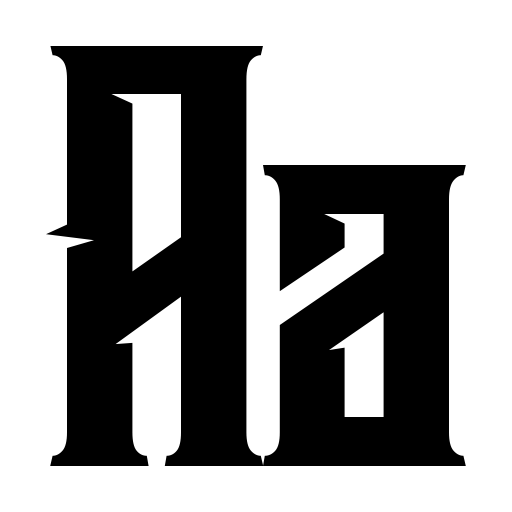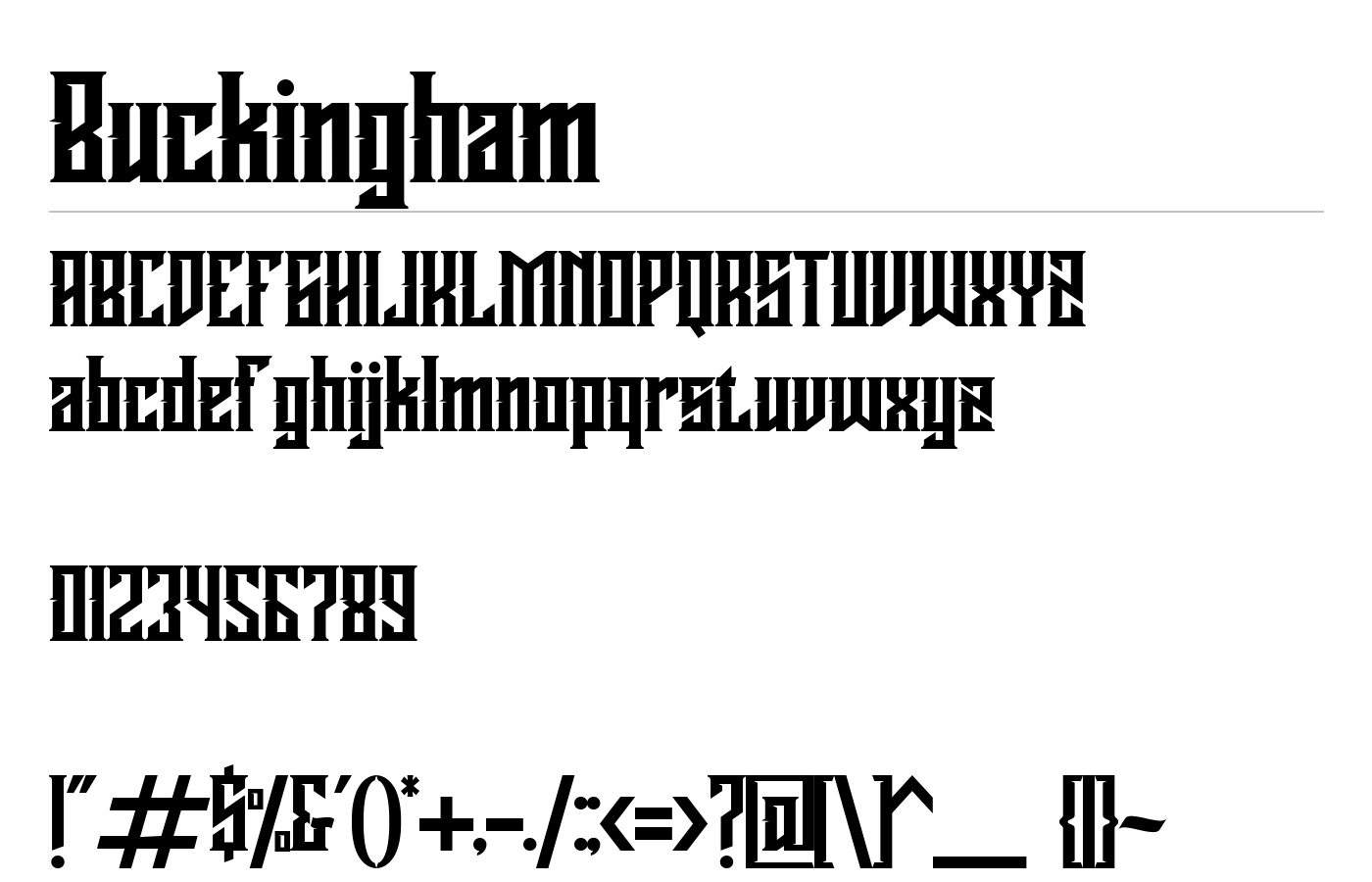
Buckingham is a bold, condensed serif font with a highly stylized gothic or blackletter influence, characterized by sharp, angular strokes and strong vertical lines. Its dramatic and intricate letterforms make it an excellent choice for eye-catching headlines, logos, or designs that seek a vintage, medieval, or edgy aesthetic. This font works best in display contexts where its unique personality can stand out and captivate attention.
Buckingham Font
About Buckingham Font
| Font family | Buckingham Font |
| Designer | Kong font |